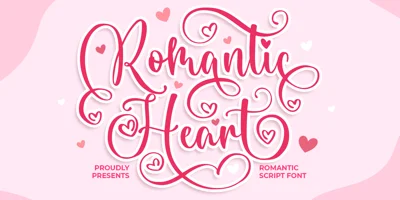
Romantic Heart Font
Romantic Heart Font is perfect for Valentine's Day cards, wedding invitations, love letters, anniversary announcements, romantic poetry books, dating app interfaces, jewelry brand logos, and couple photography watermarks. This enchanting typeface excels in bridal boutiques, flower shop signage, romantic restaurant menus, and intimate event stationery designs.
What makes Romantic Heart Font exciting is its passionate expression of love through typography that captures the essence of romantic feelings. The font features heart-shaped decorative elements, flowing curves, and tender letterforms that speak directly to the heart. Its emotional warmth and intimate character transform ordinary text into heartfelt messages of love and affection.
Romantic Heart Font family includes multiple romantic styles: Regular, Bold, Light, Decorative, Outline, and Script variations. Each style maintains the font's signature loving character while providing designers with diverse options for creating emotionally resonant typography that celebrates love, relationships, and special romantic occasions.
Couples and designers choose Romantic Heart Font for projects requiring genuine emotional connection and romantic appeal. The font's versatility makes it suitable for both personal love letters and commercial Valentine's campaigns, ensuring beautiful results across digital invitations, print materials, and romantic packaging designs.